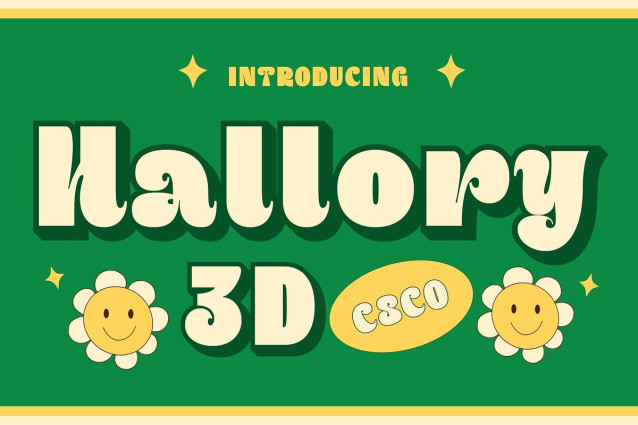
Hallory 3D Font
Hallory 3D Font is a modern display font that brings boldness and charm together in a rounded, eye-catching form. Its cute and funky design delivers a playful personality, while the added 3D effect creates extra depth and movement—perfect for designs that aim to stand out with joy and character.
Rounded Shapes for a Friendly Appeal Each letter in Hallory 3D features smooth, rounded edges that radiate warmth and approachability. The bold structure adds strength to the soft curves, striking a balance that feels both fun and confident, ideal for child-friendly or pop-inspired visuals.
3D Effect for Visual Pop and Energy The dimensional 3D styling enhances the expressive quality of Hallory 3D, giving it a lively, almost animated presence. This effect adds visual interest and playful motion, making the font a standout choice for attention-grabbing headlines and vibrant compositions. Its cheerful vibe makes it a favorite for packaging, toy branding, party invitations, and anything that celebrates fun.
Versatile for Bold, Joyful Typography Hallory 3D adapts well across different formats and media, offering legibility, personality, and dimensional flair. It’s a bold font with a light heart—ready to bring joyful energy to your next creative project.